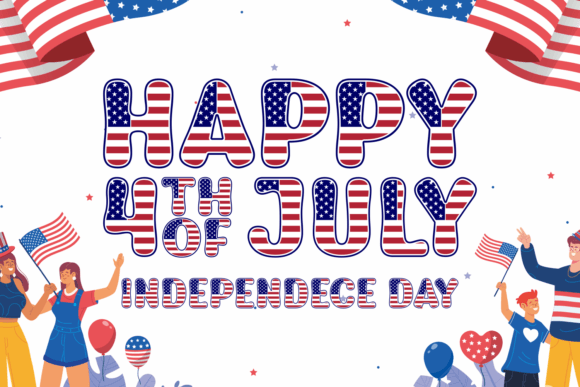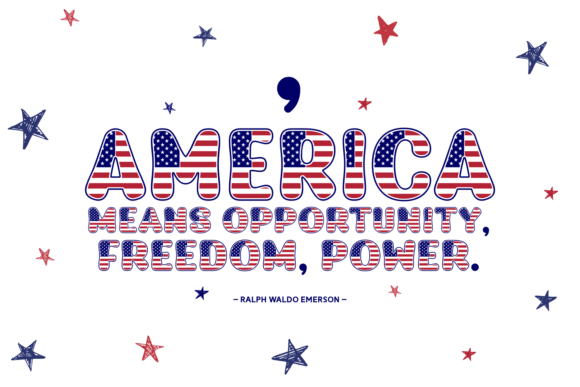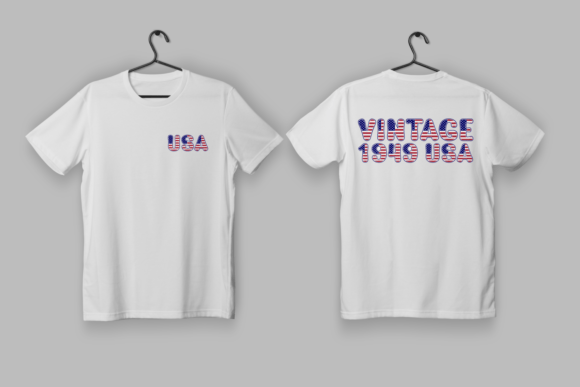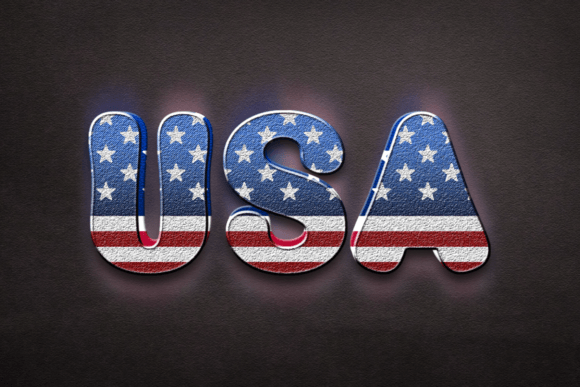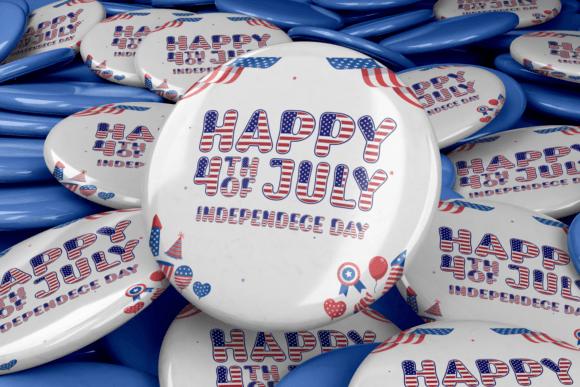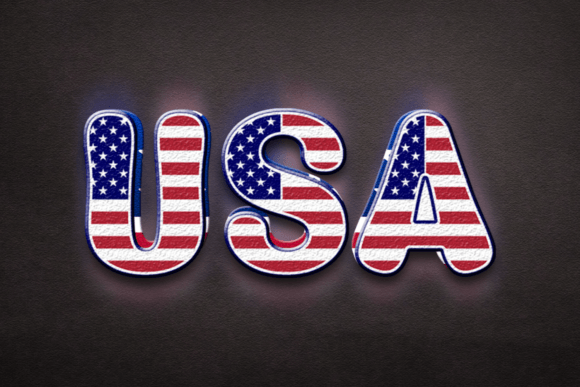
Introduction to Hero Usa Font
Imagine you’re working on a creative project, and you need to convey a sense of patriotism and unity. You want your design to reflect the values and ideals that the American flag represents. That’s where the Hero Usa Font comes in – a unique and powerful design resource that captures the essence of American culture and history.
With its bold and striking design, the Hero Usa Font is the perfect choice for designers looking to add a touch of national pride and identity to their work. Its distinctive stars and stripes motif is carefully integrated into each letter, creating a visually striking effect that’s sure to grab attention. Whether you’re working on a project for Independence Day, Veterans Day, or Memorial Day, the Hero Usa Font is a high-quality design resource that’s sure to deliver.
- Features a unique, bold design that is perfect for use in headings and titles, adding a touch of American patriotism to any creative project.
- Designed with a modern aesthetic, the Hero Usa Font is perfect for use in a range of creative projects, from logos and branding to signage and wayfinding.
Honest Review: Hero Usa Font
I recently stumbled upon the Hero Usa Font, and I must say it’s been a game-changer for my creative project. As a designer, I’m always on the lookout for high-quality design resources that can elevate my work. The Hero Usa Font is a great addition to my collection.
- High-quality design: The Hero Usa Font is incredibly well-designed, with a sleek and modern aesthetic that’s perfect for any creative project.
- Limited customization options: While the font itself is well-designed, the customization options are somewhat limited.
- No support for complex scripts: Unfortunately, the Hero Usa Font doesn’t support complex scripts, which may be a concern for designers working with non-English languages.
Overall, I’m thoroughly impressed with the Hero Usa Font. Its high-quality design, free download, and transparent background make it a valuable addition to any designer’s toolkit. While it may have some limitations, I highly recommend giving it a try for your next creative project.
Tips for Getting the Most Out of Hero Usa Font
When using the Hero Usa Font, consider the following tips: use it in conjunction with other design resources, such as graphics and images, to create a cohesive look. Experiment with different font sizes and styles to achieve the desired effect, and don’t be afraid to try out new and creative uses for the font.
The Hero Usa Font is suitable for various creative projects, including business cards, posters, and social media graphics. It’s also a great choice for design projects that require a modern and professional look. With its high-quality design and free download option, the Hero Usa Font is an excellent design resource for any creative project.